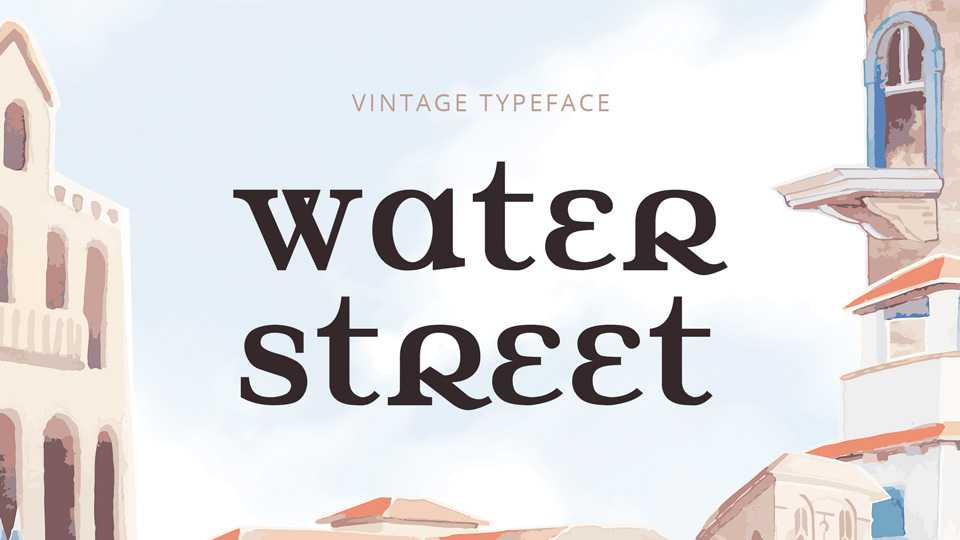
Download Water Street font, an old style serif typeface with mixed characters and a lot of alternates. Water Street font looks great in vintage projects, cards, posters, prints and more.